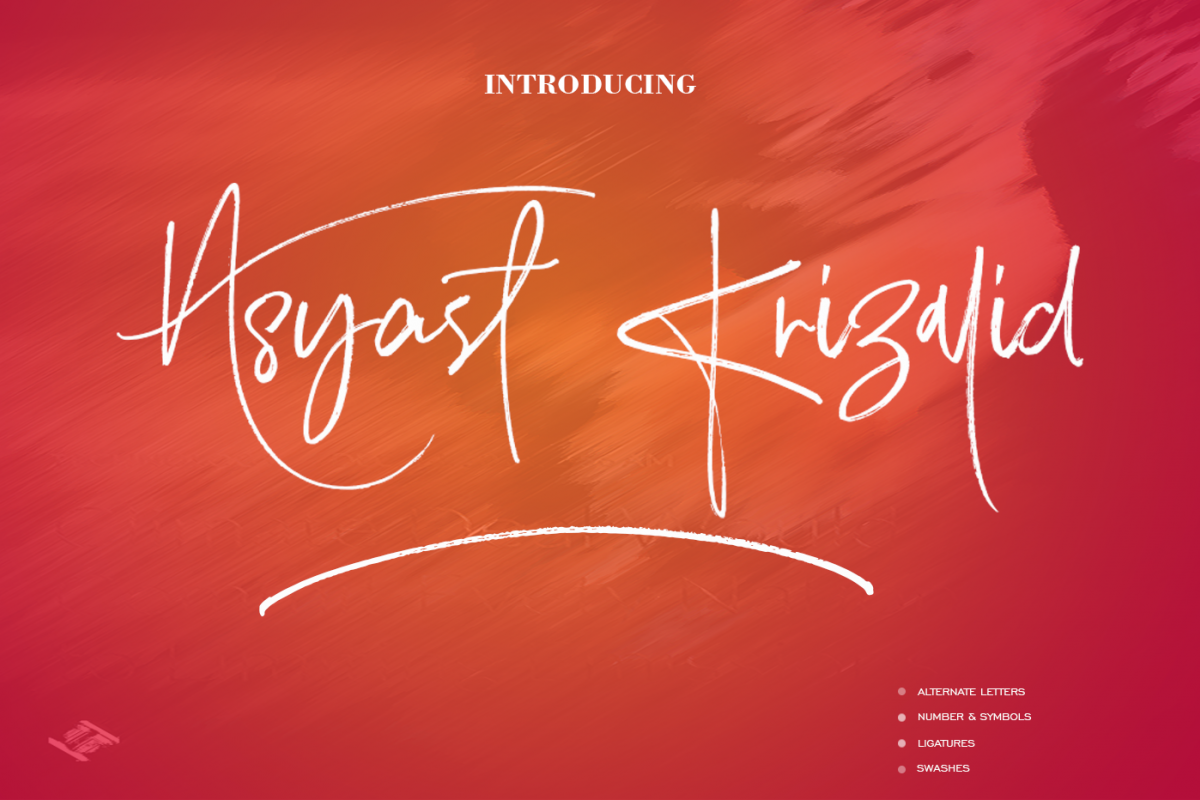
Asyast Krizalid Brush Script Font
Asyast Krizalid Brush Script Font:Asyast Krizalid Brush Script Font has almost an unique design that posseses elegancy and charm. Fluidity of ink and hardness of brush created the unique characteristics of the font. You can see the harmony of the curls among the letters. With Asyast Krizalid Brush Script Font , you can make your projects, brands, presentation of your collections, magazines, logos, packagings and websites be eye-catching with pleasure.
• 2 Uppercase Letters
• 2 Lowercase Letters
• Numbers and Symbols
• 26 Swashes